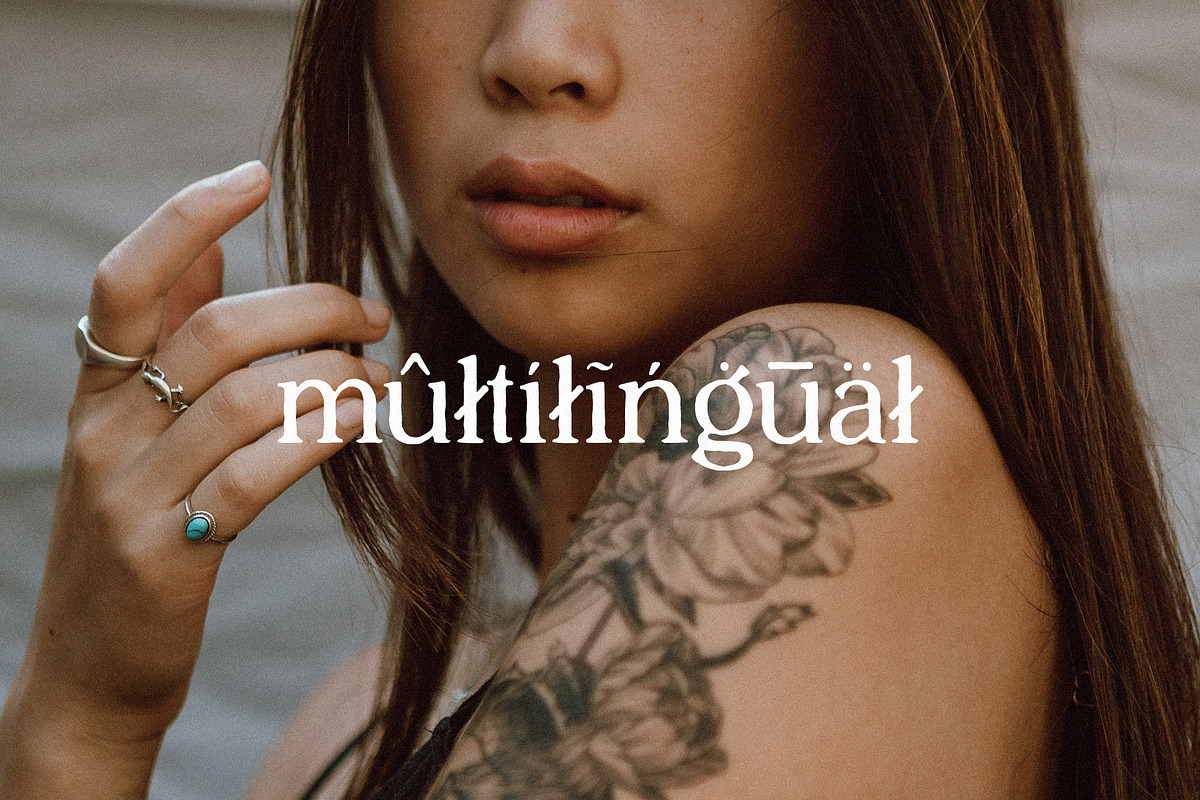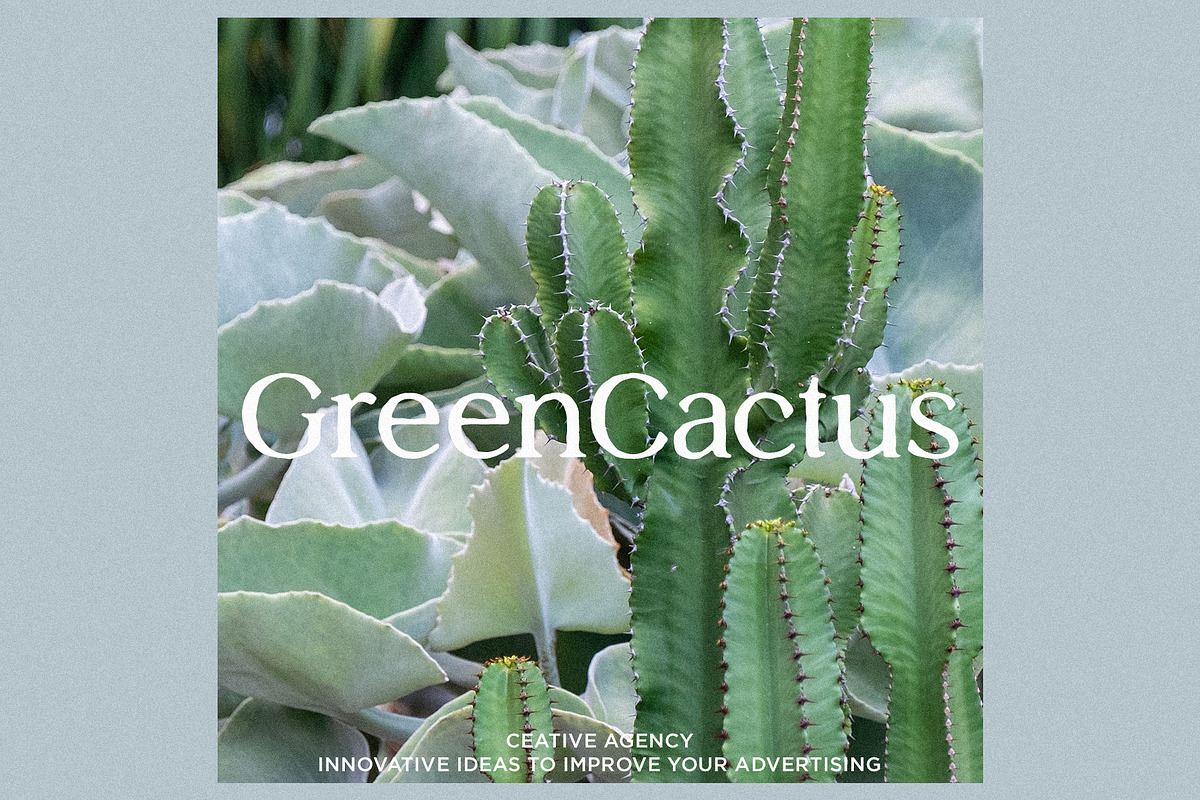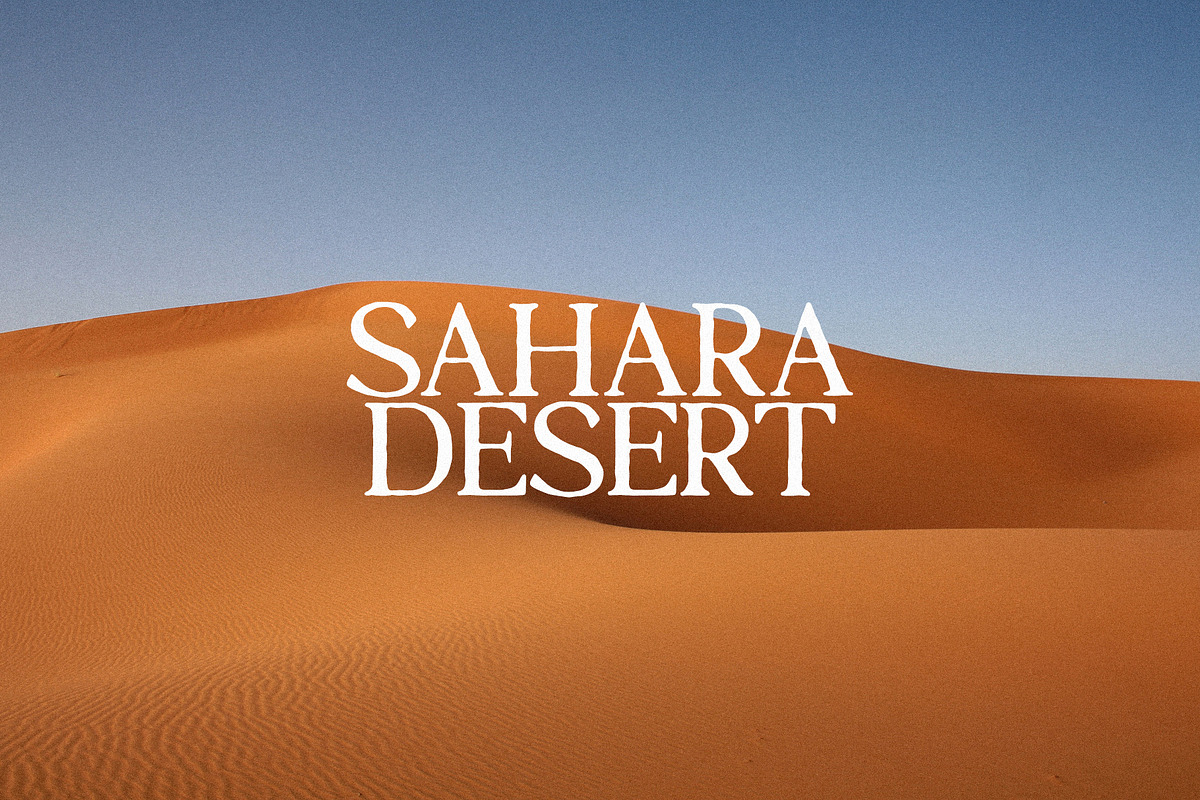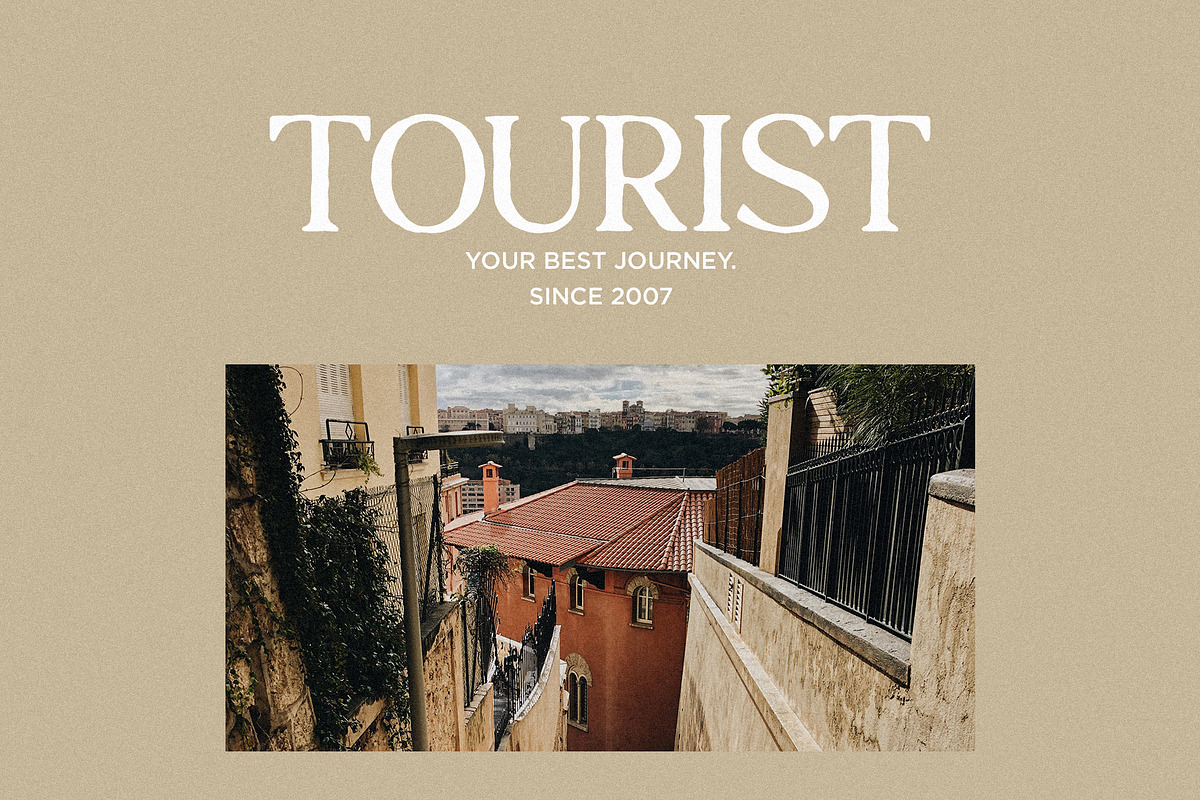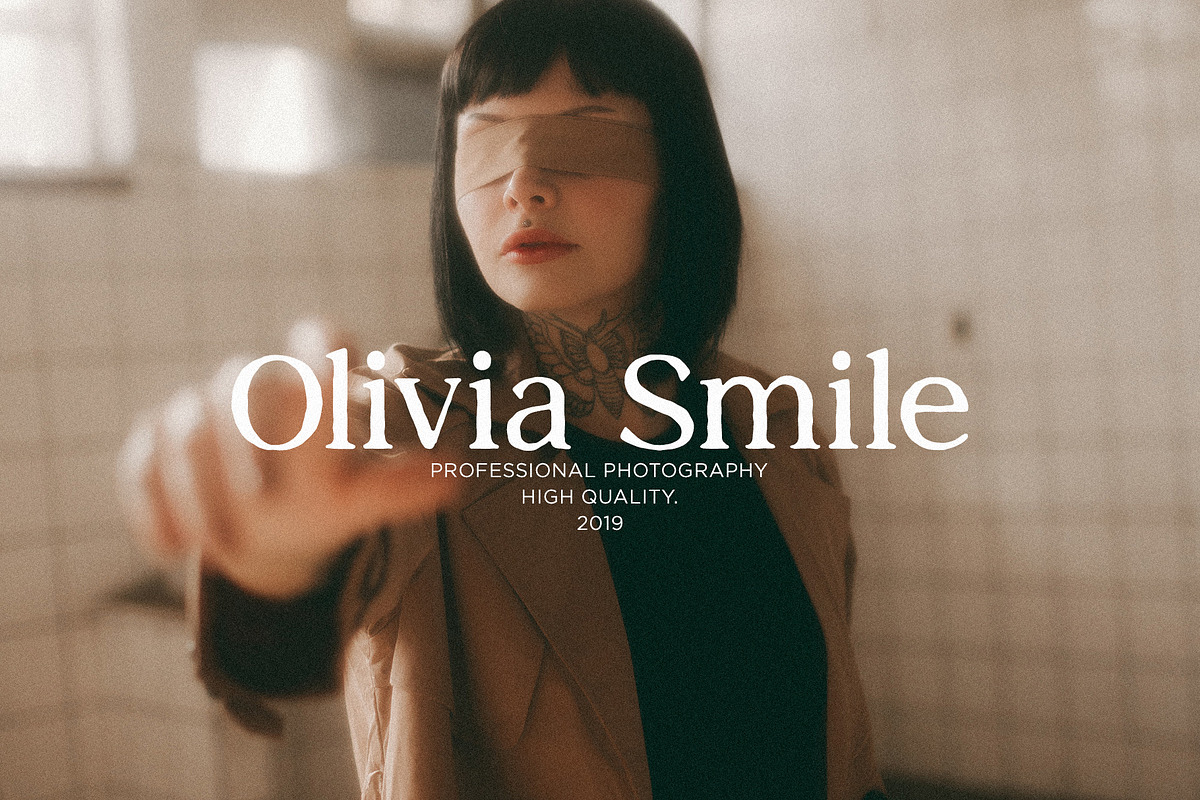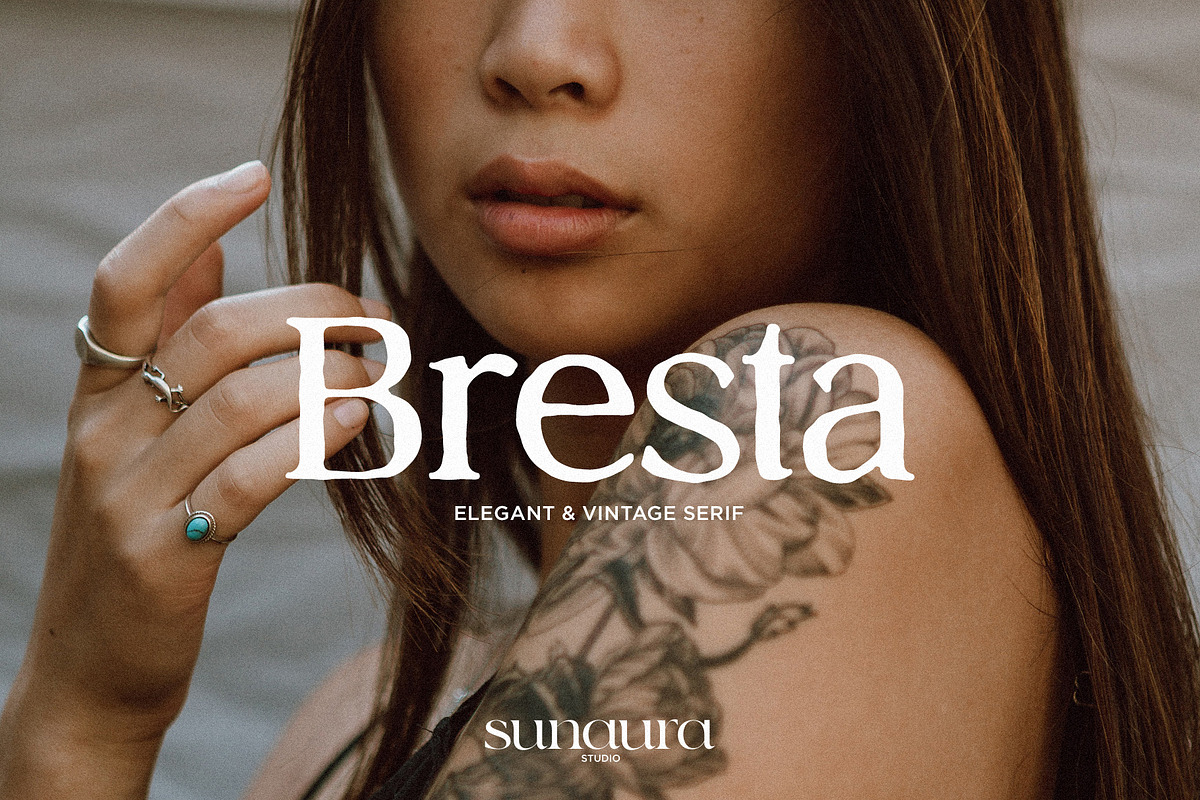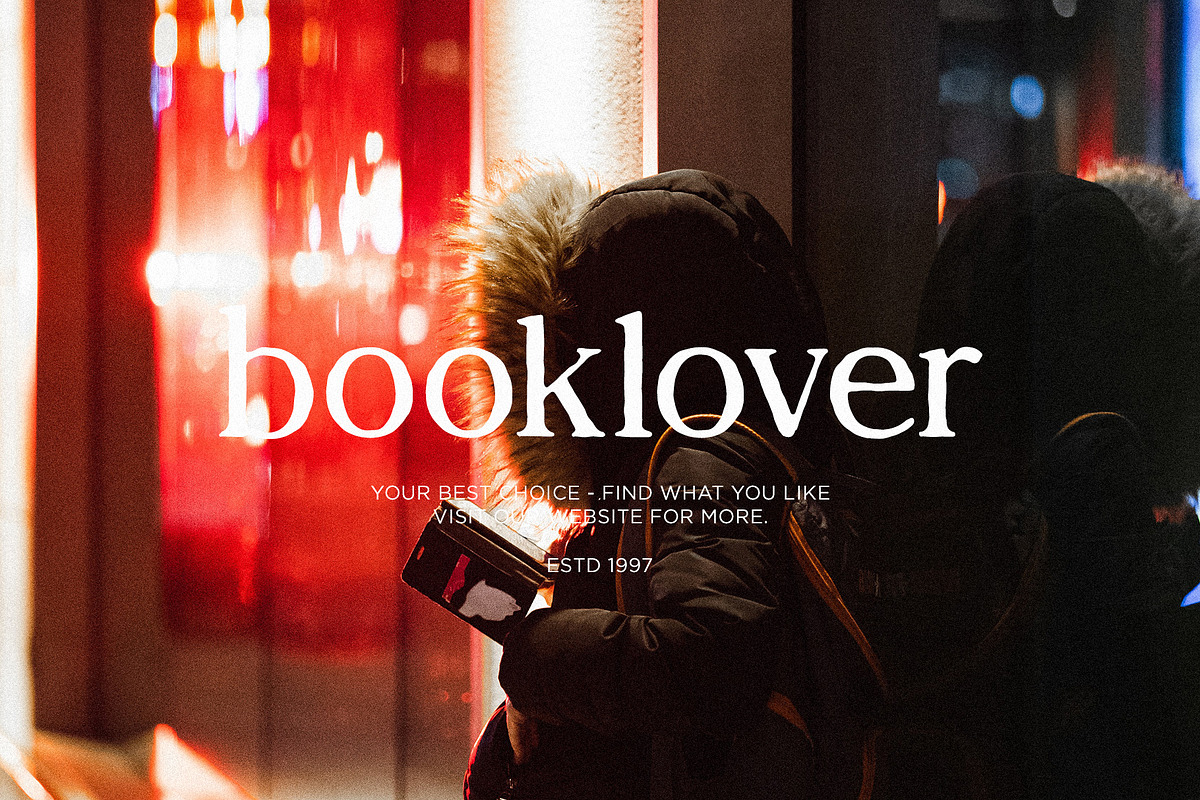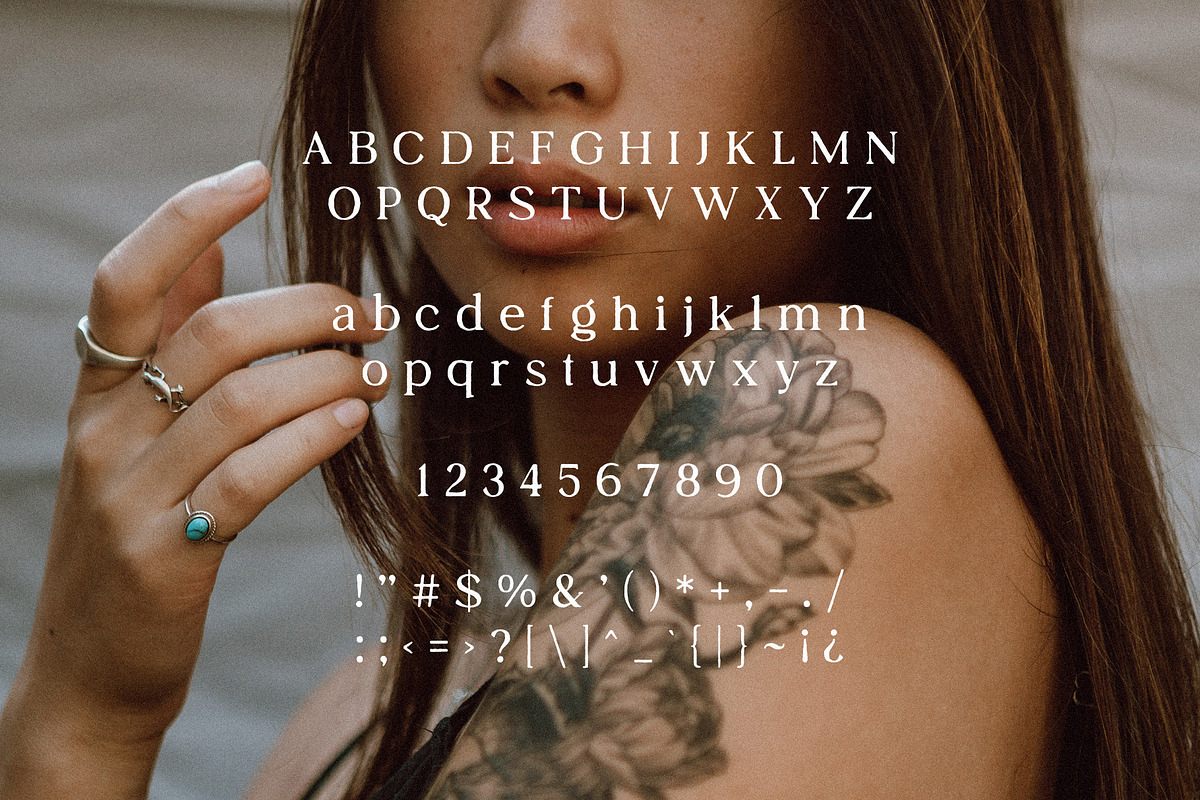
Bresta - Vintage & Elegant Serif
Bresta vintage & elegant serif typeface. This font is perfect for everything, logos, t-shirt design, magazine or website headers, etc. Bresta features multilingual support, over 250+ glyphs, uppercase & lowercase letters, numbers & symbols.